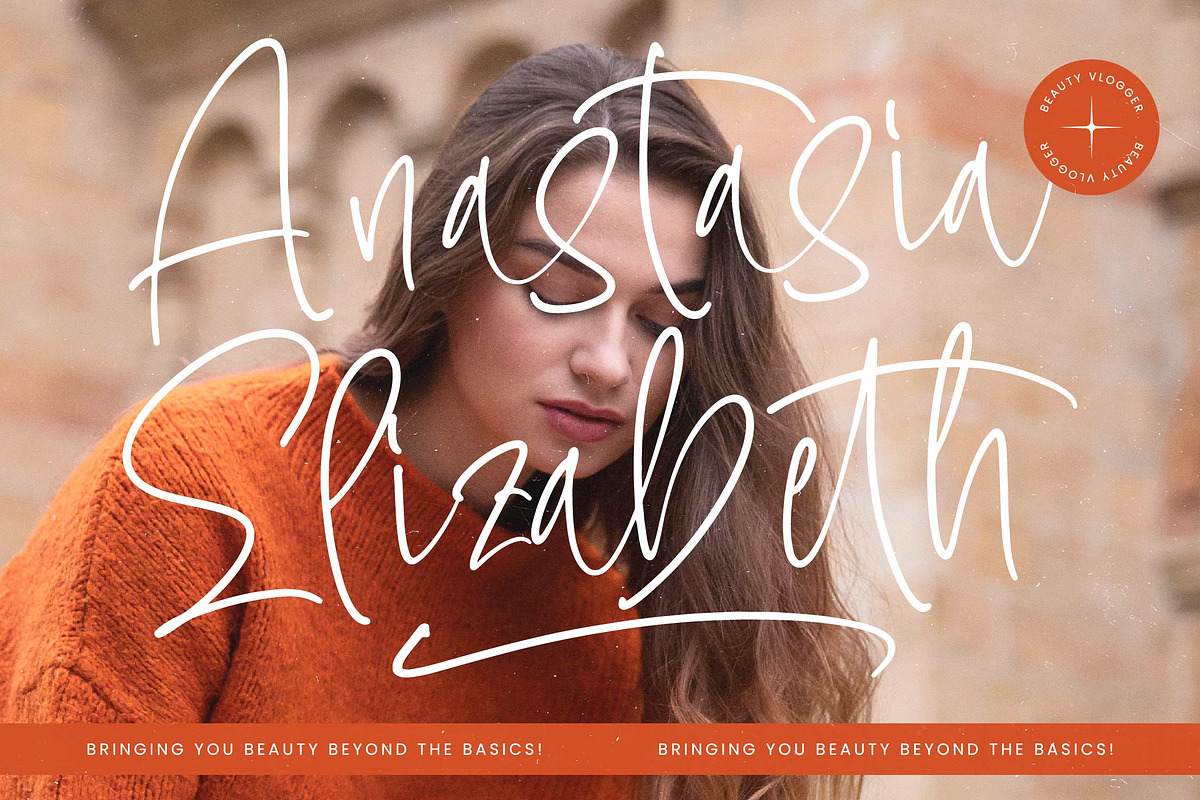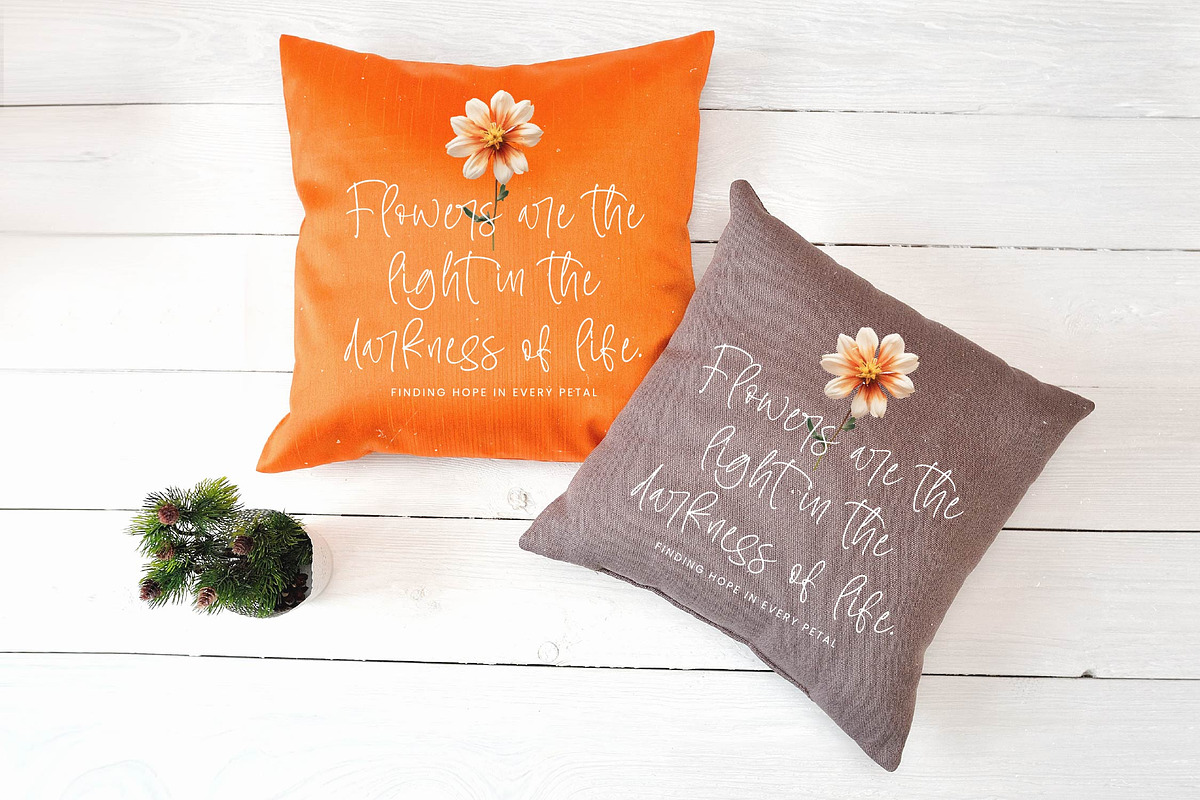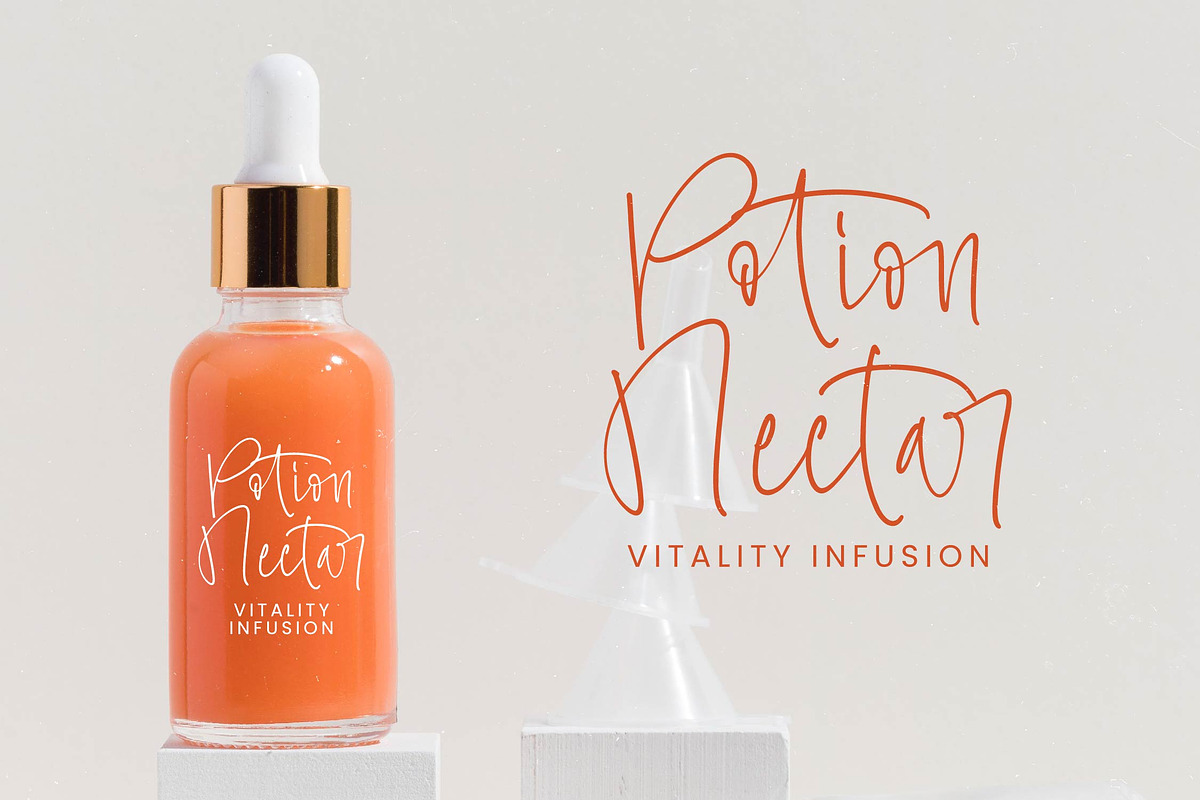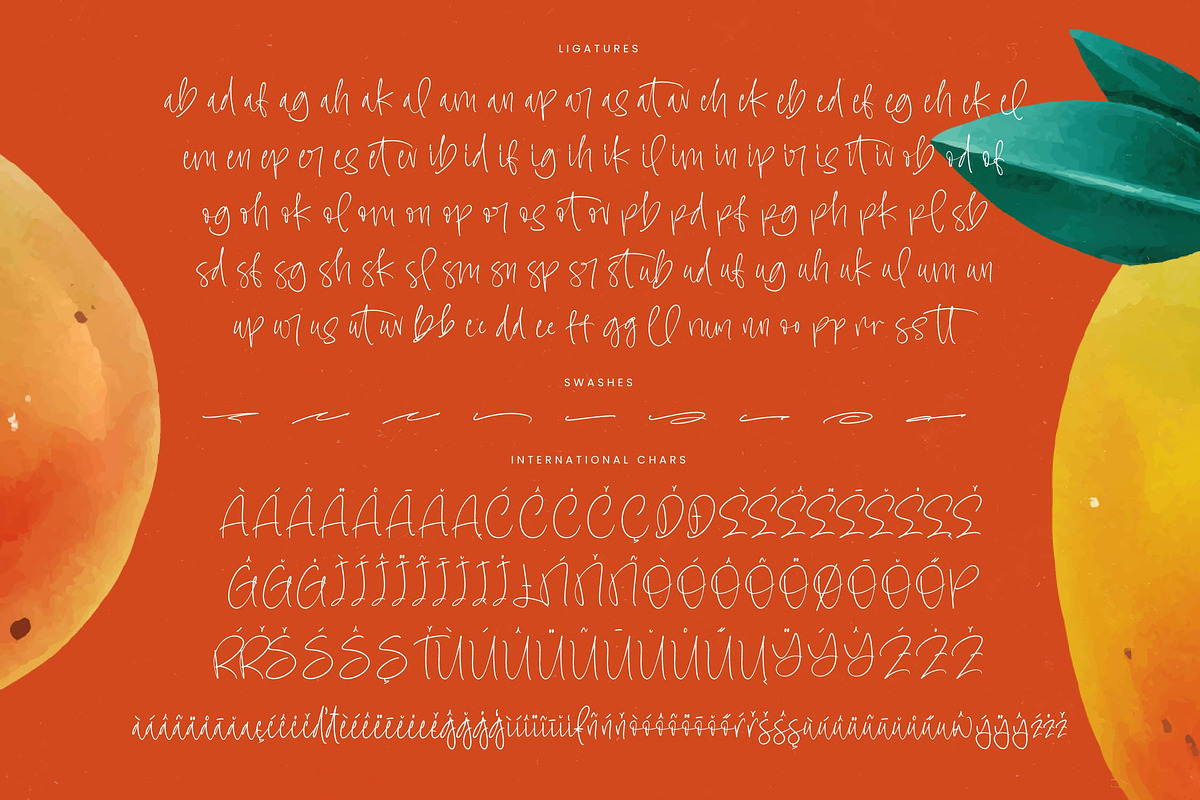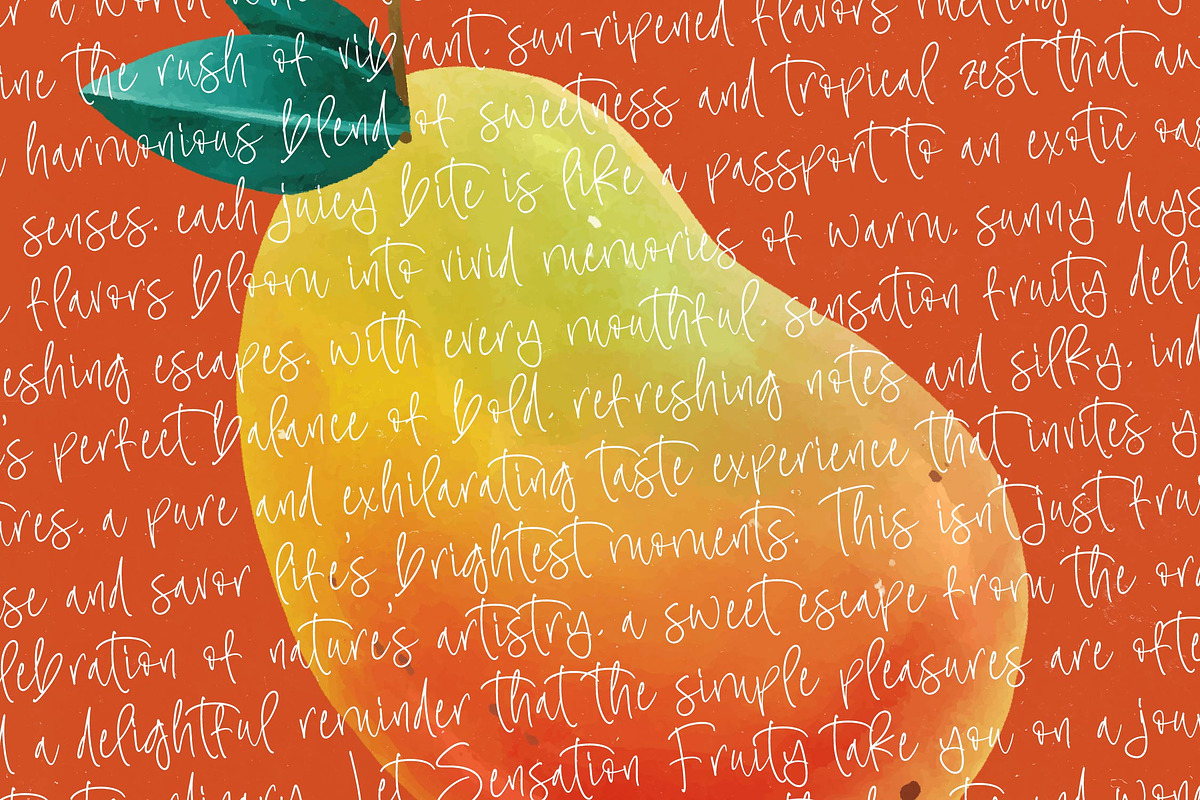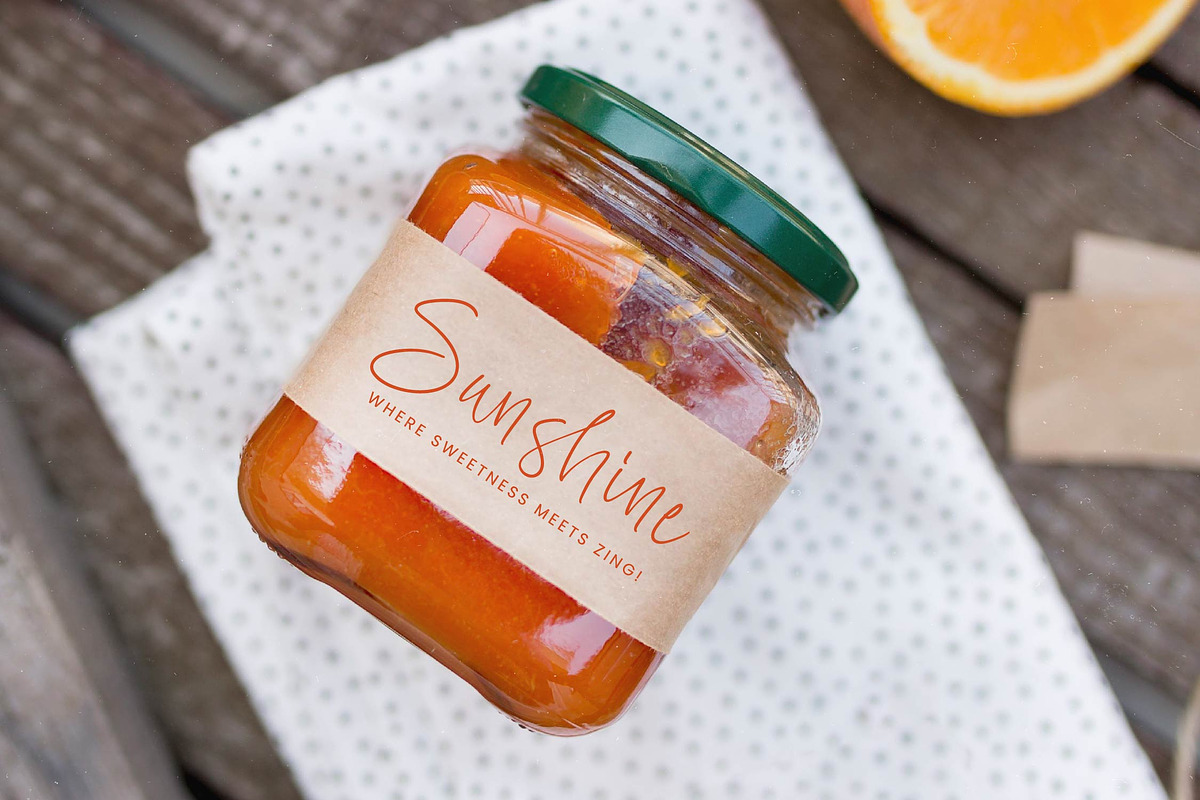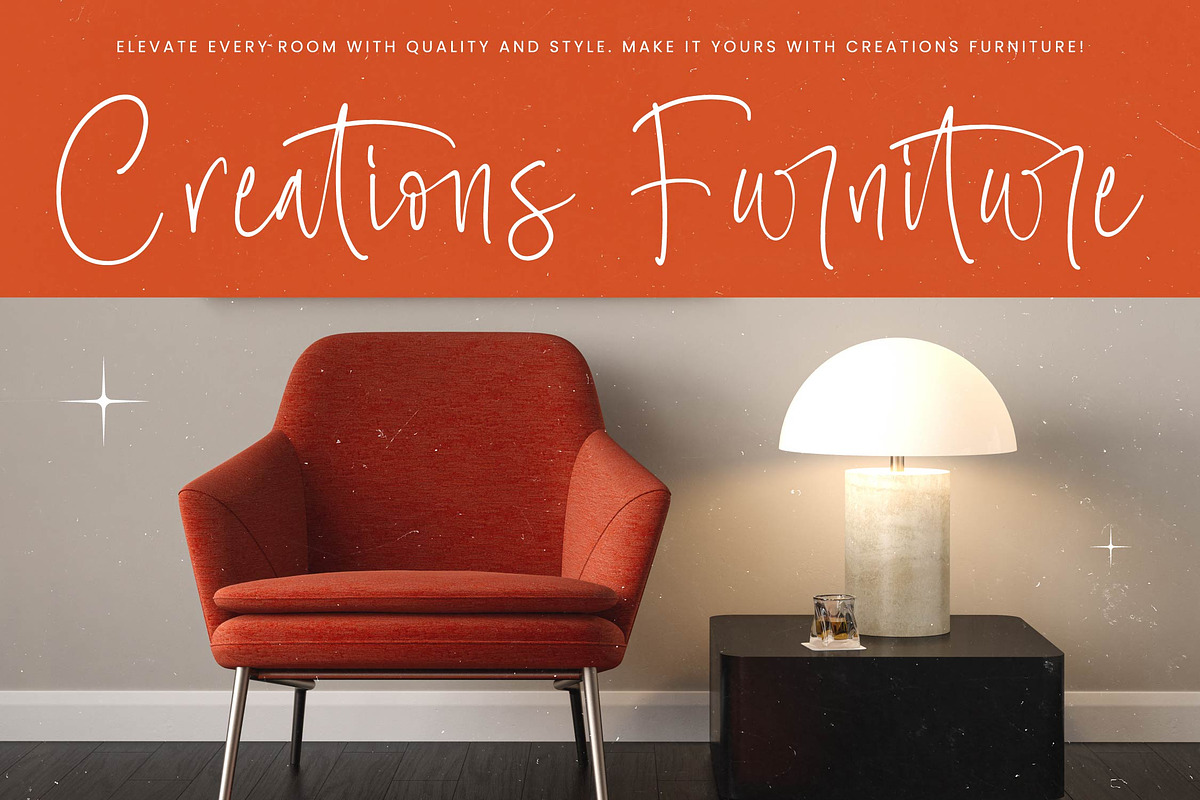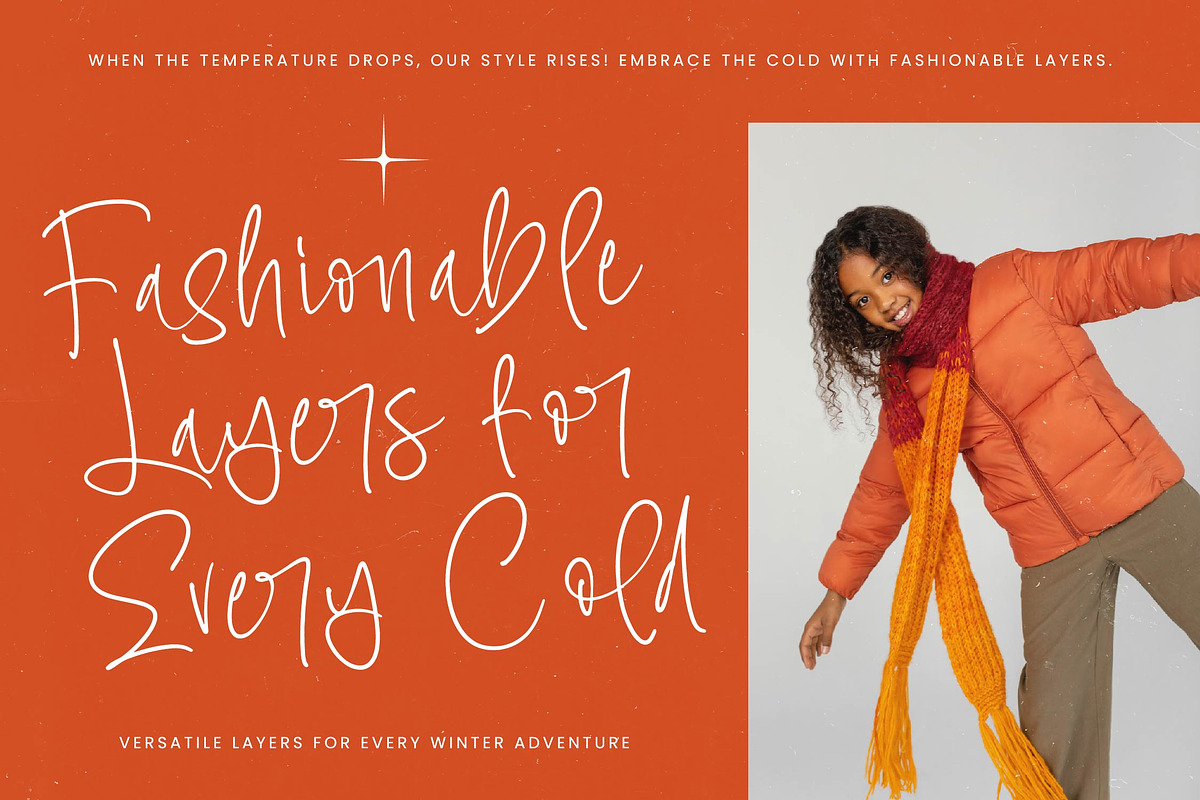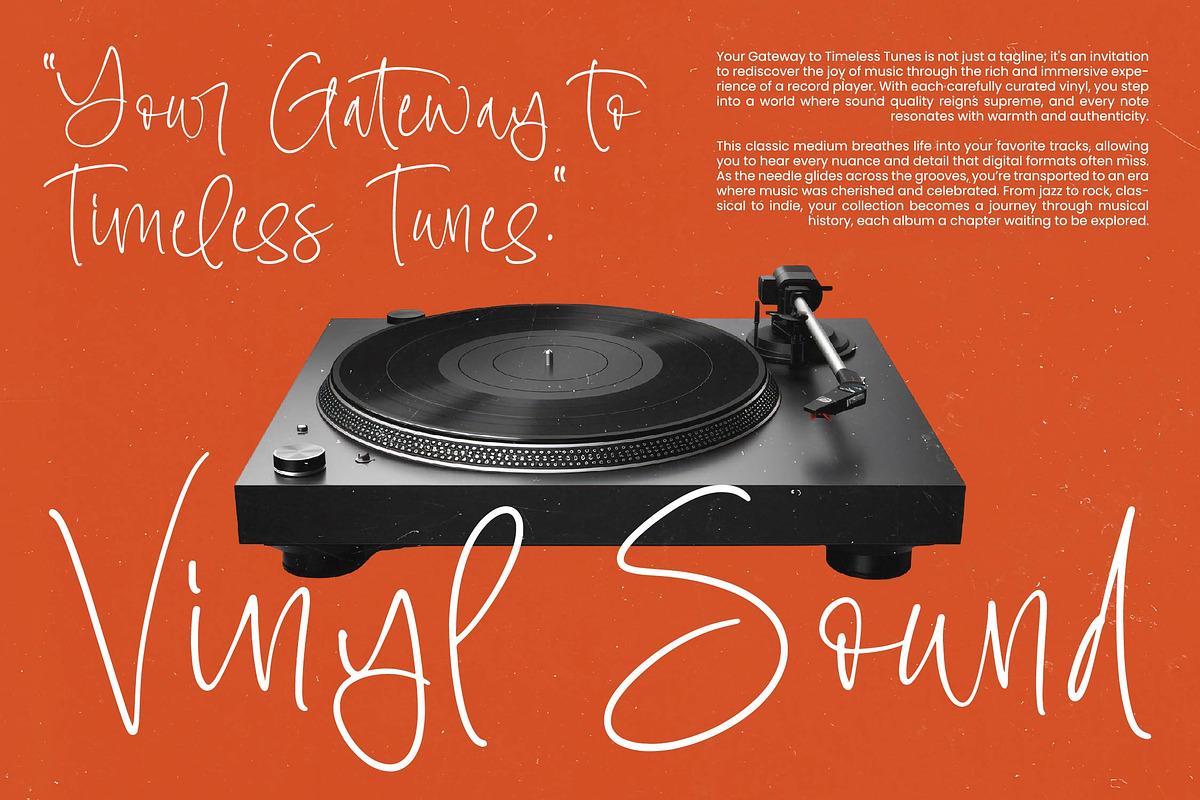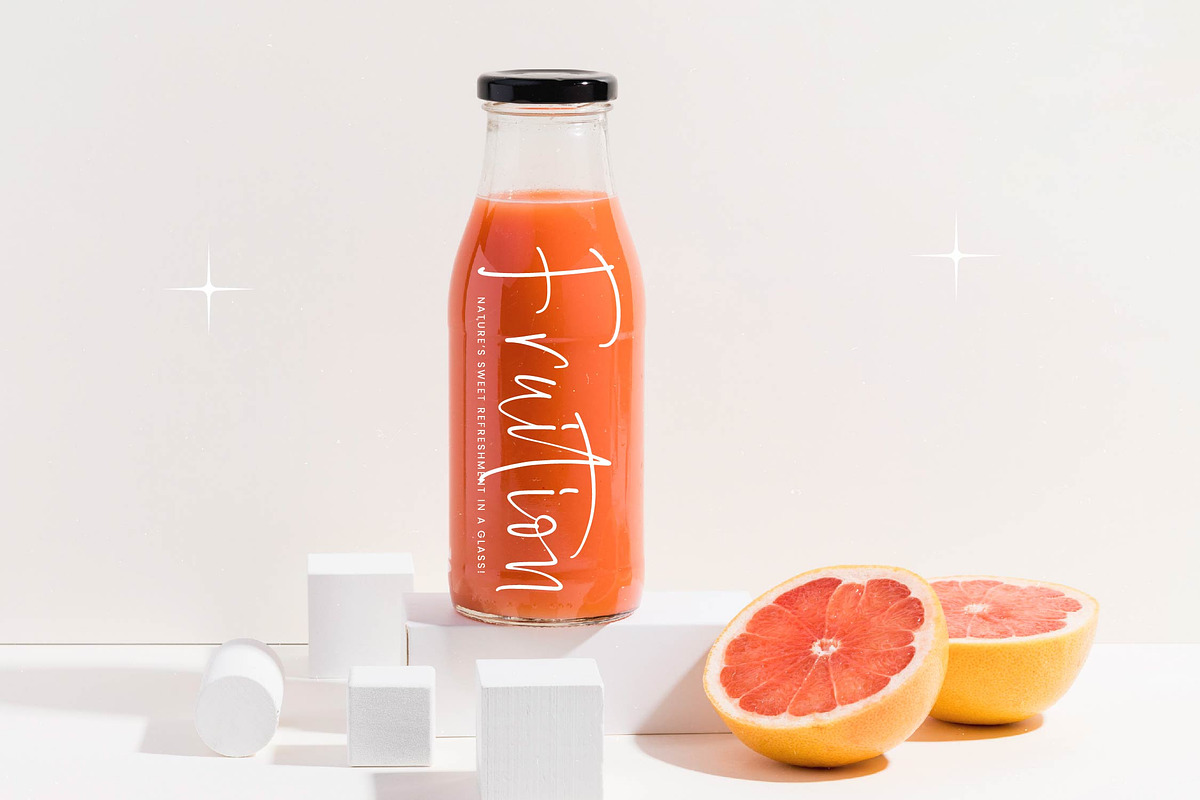
Sensation Fruity Natural Handwritten
Sensation Fruity - Natural Handwritten Font , from Stylishtype.Co , Suitable for any projects such as: logos, branding projects, homeware designs, product packaging, mugs, quotes, posters, shopping bags, t-shirts, book covers, name card, invitation cards, greeting cards, label, photography, watermark, special events, and all your other luxury and beautiful projects that need a Luxury Script taste.
- 105 Ligature Alternates & 9 Swashes